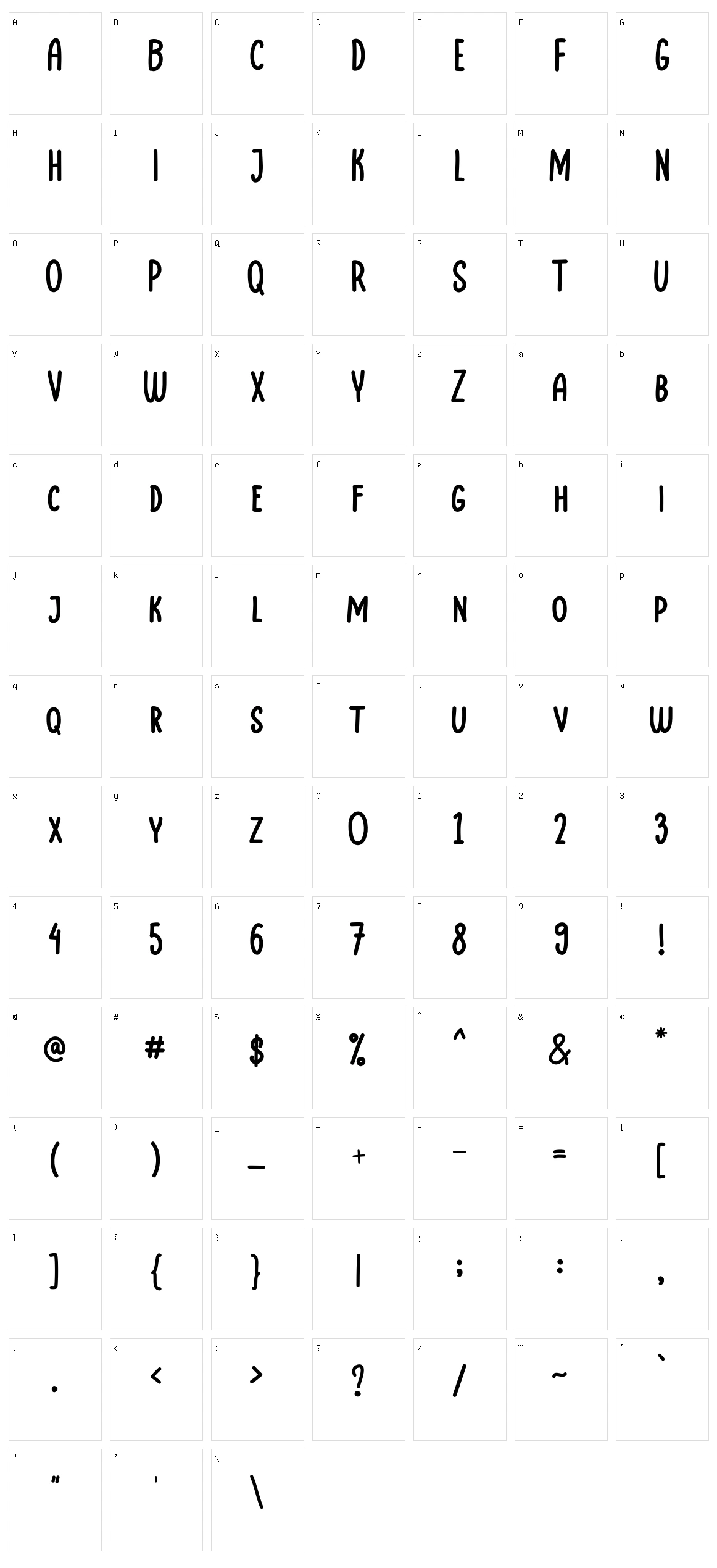
Limejuice is a fun handwritten font that brings character to every project! Perfect for a handmade feel.
It's designed so that you can write in both lowercase and uppercase and get the same result, so no hassle with your use.
Multilingual support is included for Western European languages. For full list of included characters, see the character map.